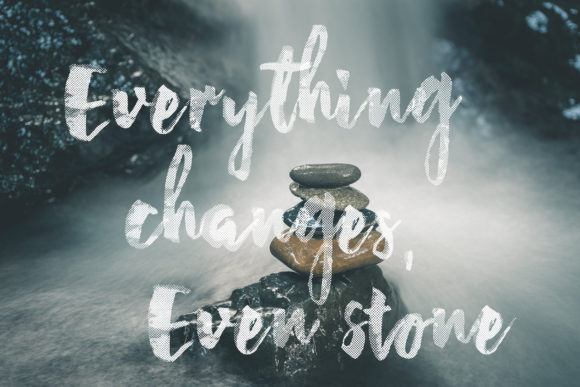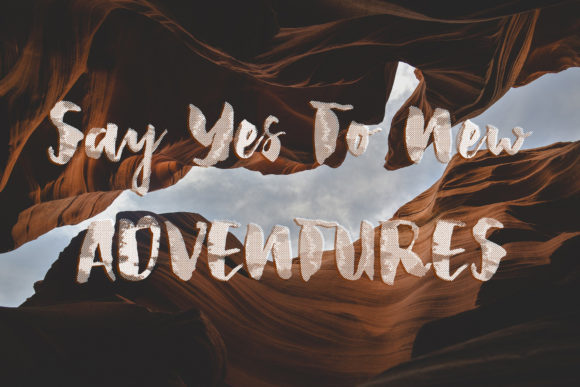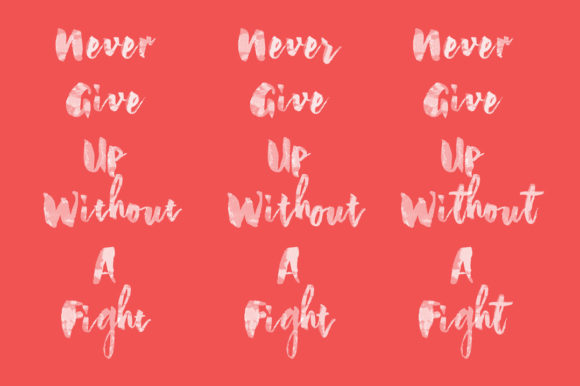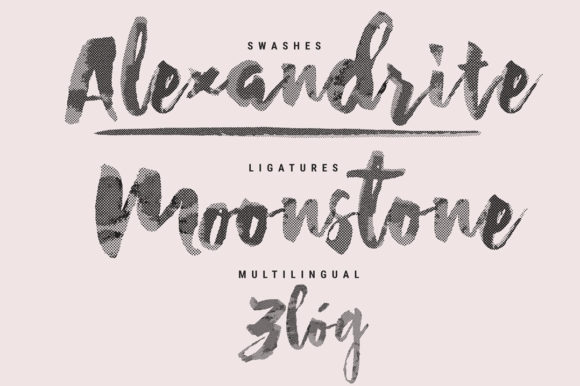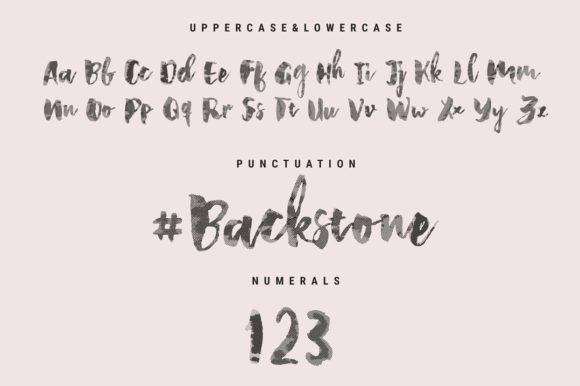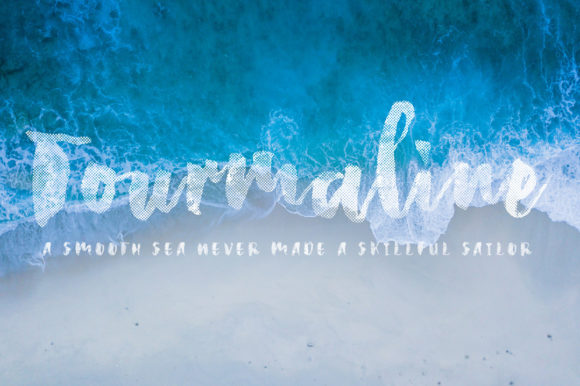
The Perfect Font for Making a Statement
Have you ever found yourself staring at a blank canvas, searching for the perfect font to bring your creative vision to life? It’s that moment of frustration and excitement when the right font can make all the difference. For designers, the search for the perfect font is a constant quest, and we’re excited to introduce you to a game-changer: Backstone Fabric Font.
This cool, bold, and thick lettered display font is a must-have for any designer looking to make a statement. Whether you’re creating a poster, logo, print, or apparel design, Backstone Fabric Font is the perfect addition to your toolkit. Its versatility and impact make it a valuable asset for designers of all levels.
Key Features of Backstone Fabric Font
- Unique Fabric Texture: The font features a realistic fabric texture, giving it a tactile and organic feel that adds depth to any design.
- High-Quality Vectors: The font is built with high-quality vectors, ensuring crisp and clear typography even at small sizes.
- Comprehensive Character Set: The font includes a comprehensive character set, including Latin, Cyrillic, and Greek alphabets, as well as punctuation and symbols.
- Multi-Layered Design: The font’s multi-layered design allows for a high degree of customization, enabling designers to create unique and intricate designs.
Designer Review: Backstone Fabric Font
As a designer, I’ve had the chance to work with Backstone Fabric Font, and I must say it’s an interesting addition to the font family. ✨ One thing that works well is its unique, hand-drawn feel, which makes it perfect for projects that require a more organic and natural touch. The font also includes a range of weights and styles, making it versatile and easy to use.
Another plus is the extensive language support, which makes it a great choice for projects that require multilingual text. The font also includes a range of ligatures and swashes, which can add a touch of elegance to your design. ✨ Additionally, the font is highly customizable, allowing you to adjust the spacing and kerning to suit your specific needs.
- ⚠️ The font may not be suitable for projects that require a high level of precision or technical accuracy, as the hand-drawn feel can sometimes make it difficult to read.
- ⚠️ The font may not be as legible at small font sizes, which can make it difficult to use in certain applications.
Overall, I think Backstone Fabric Font is a great choice for designers who want to add a touch of personality to their projects. While it may have some limitations, its unique feel and extensive customization options make it a valuable addition to any designer’s toolkit.
The Backstone Fabric Font is perfect for designs that require a unique, textured look. Some common use cases include:
- Clothing and textile designs
- Home decor and furniture designs
- Food and beverage packaging
Remember to experiment with different font sizes, colors, and styles to get the most out of the Backstone Fabric Font.